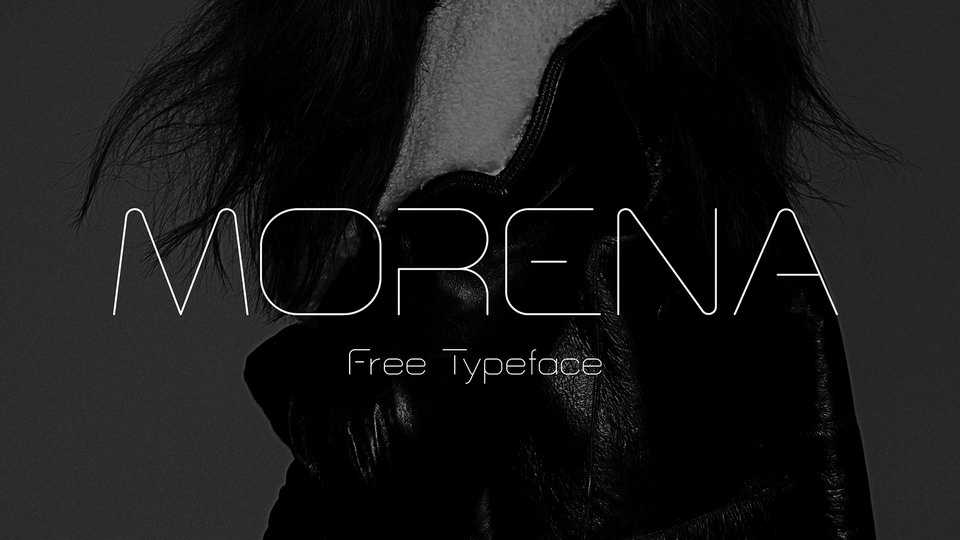
Download Morena font family, a stylish modern minimalist display typeface in 5 weights. Morena is great for branding, logo, magazine, headlines, fashion, architecture, packaging, art and more.